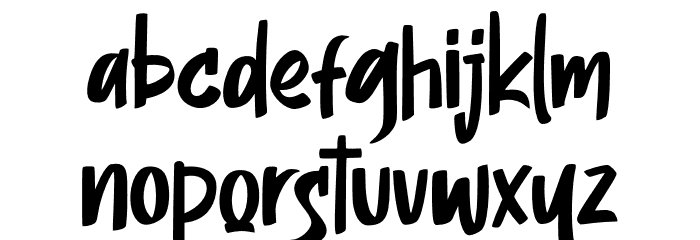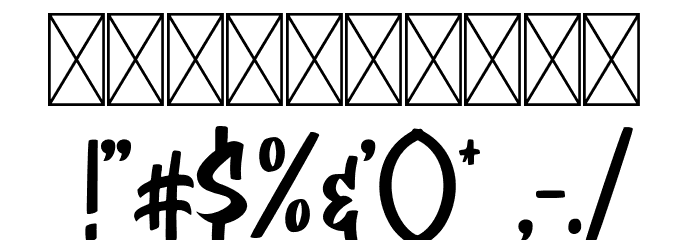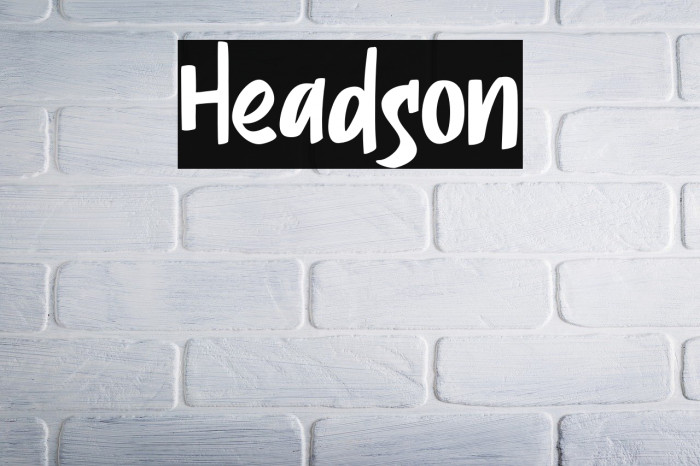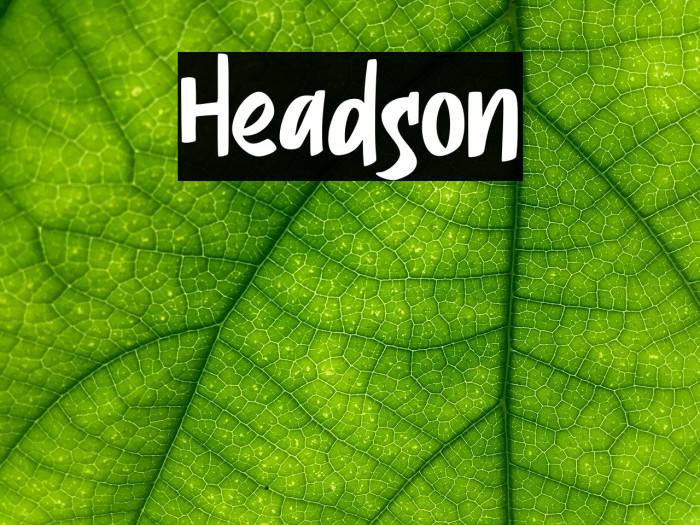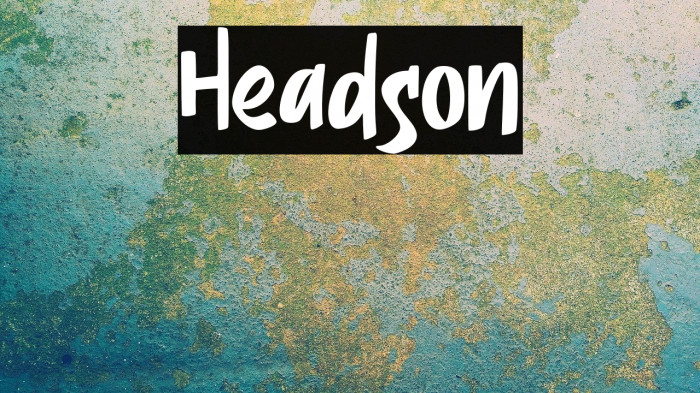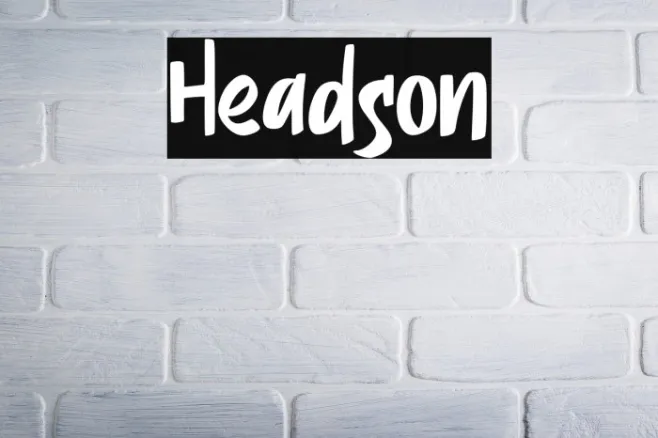
Headson Font
This font features a bold and playful handwritten style with a casual and energetic appearance. The uppercase letters are tall and slightly narrow, while the lowercase letters maintain a consistent flow with rounded edges. The strokes are thick, providing a strong visual impact, and the characters are slightly irregular, adding to the informal and friendly vibe. The numbers and special characters follow the same bold and dynamic style, making this font suitable for designs that require a lively and approachable look.
A bold, playful handwritten font with an energetic and casual style.
- Proposed Projects: Ideal for children's books, playful branding, casual invitations, and social media graphics.
- Overall Style: Playful